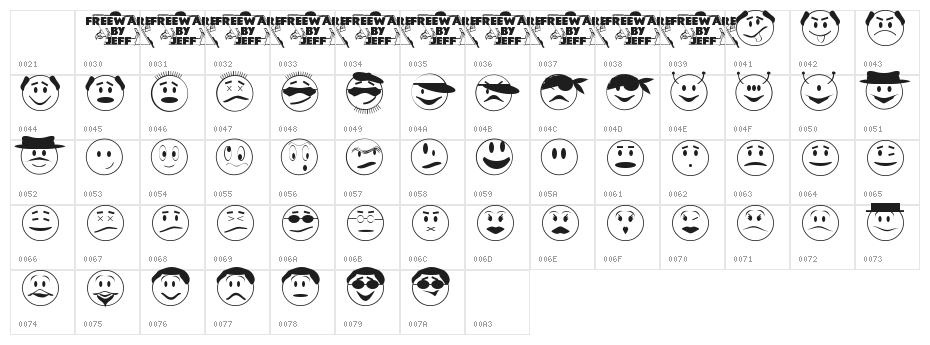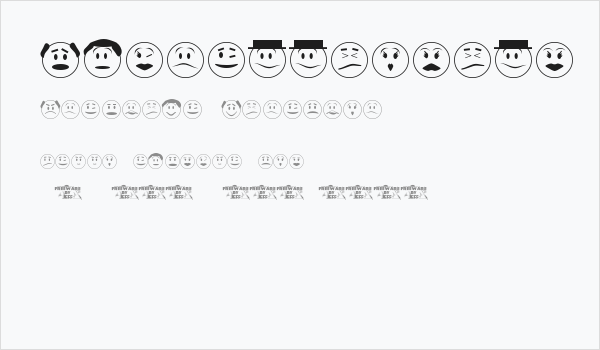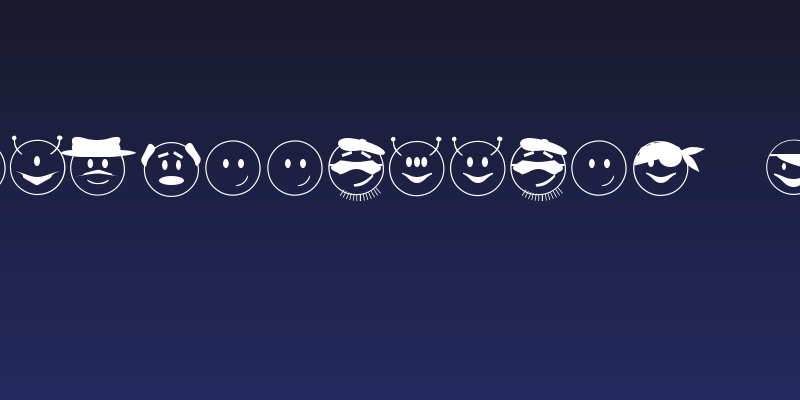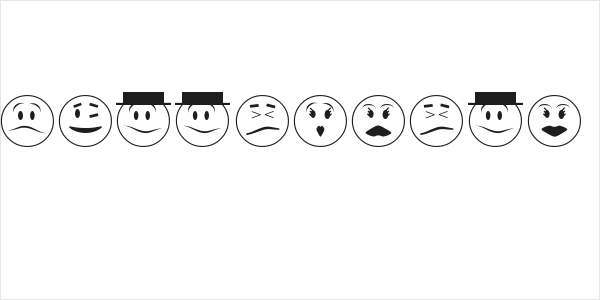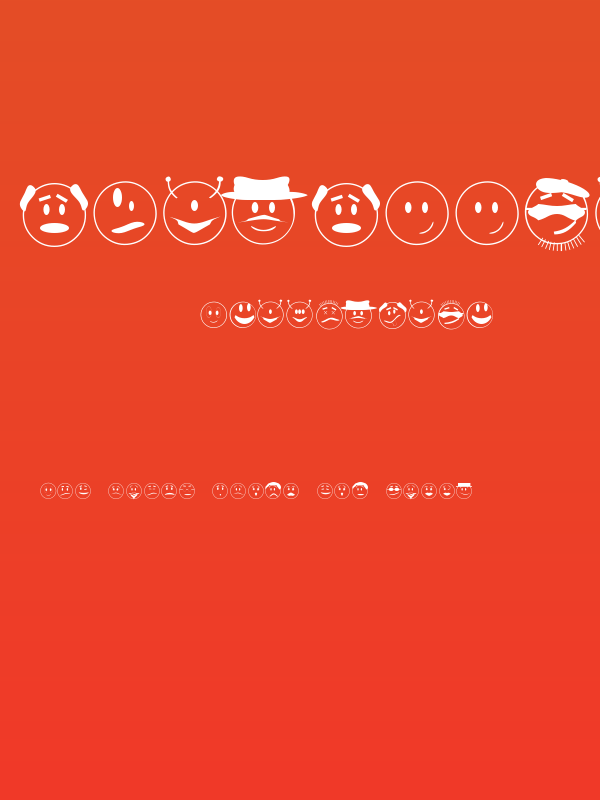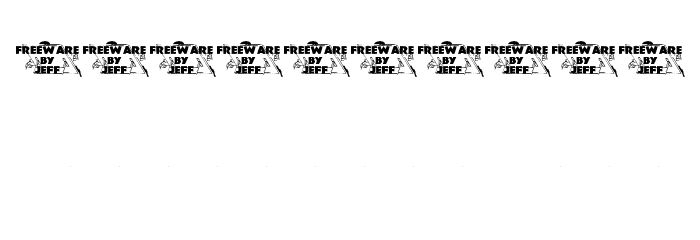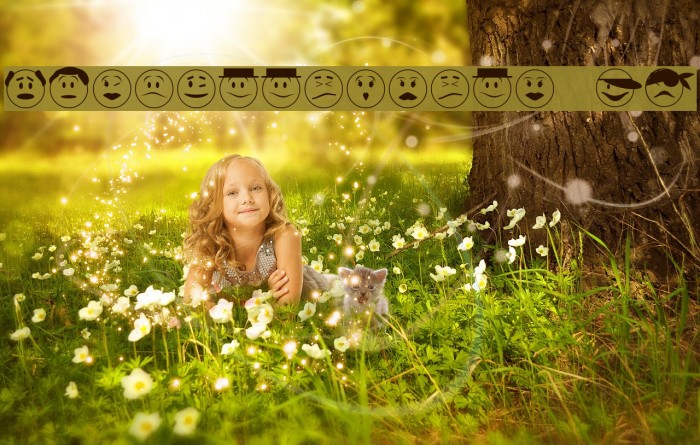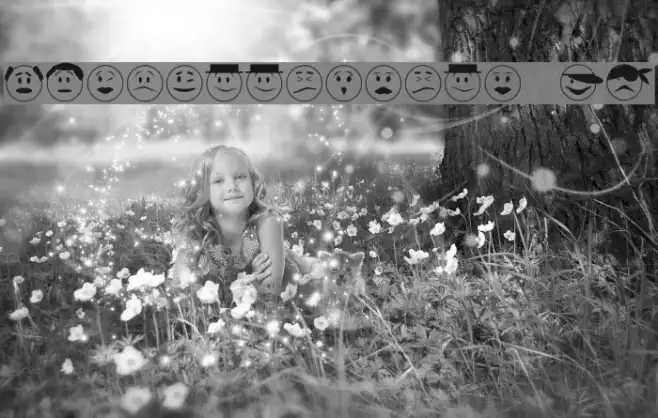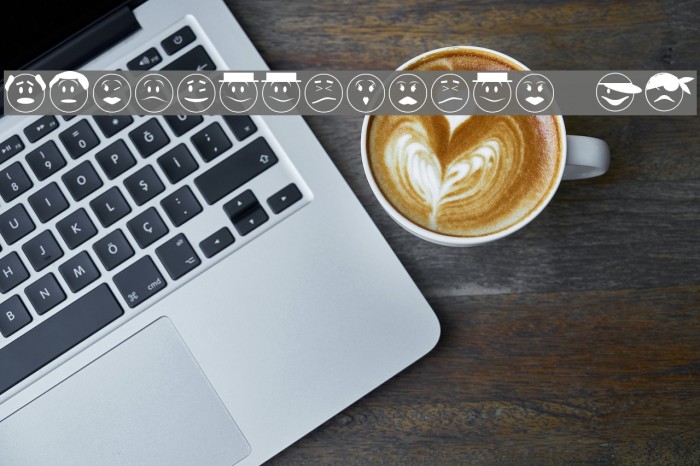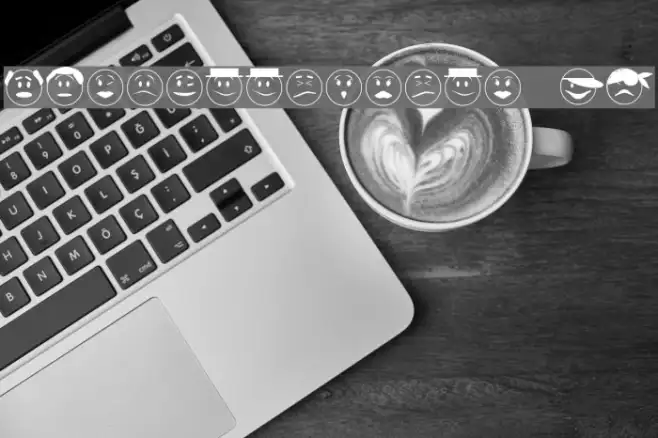
Expressionism JL Font
Expressionism JL Description
A playful and expressive dingbat font composed entirely of various cartoon-style smiley faces and emoticons, each representing different emotions, accessories, or characters. The glyphs are circular, outlined, and filled with unique facial features, hats, glasses, and other decorative elements. Some symbols are replaced with a 'FREEWARE BY JEFF' graphic.
| Overall Style | Playful, Decorative, Cartoonish |
| Use Case | Decorative elements, icons, informal headings, visual communication. |
| Proposed Projects | Children's books, party invitations, comic strips, educational materials, playful branding, stickers, and digital communication. |